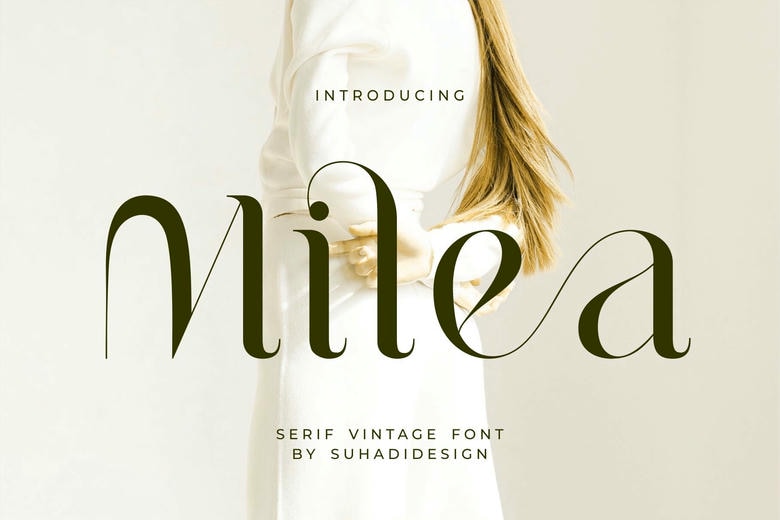
Milea Font
Milea is a classic serif vintage typeface that has fused classic classicism with modern high fashion. This typeface is characterized by exaggerated stroke contrast, which is dramatic and has weak connections, graciously elongated stems and terminals. The most unusual aspect of it is sweeping, organic curves which make the letters look luxurious, flowing, and almost calligraphic which reminds the glamour of mid-century fashion magazines and traditional haute couture.
Ideal in the projects with highly sophisticated, feminine and impressive identity. Milea is a perfect fit when it comes to fashion branding on the high-end market, high quality product packaging, editorial design, and exquisite wedding stationery. It is an essential display font to be remembered in logos and headlines, as the exclusive, flowing serifs automatically confer your brand the motif of exclusivity and haute style.
Select Milea and make your design a piece of art. Not only a font but a proclamation of style and grace and a timeless old-fashioned appeal, destined to take any project to the next level, and needs a dose of drama and class.
Milea Serif Font